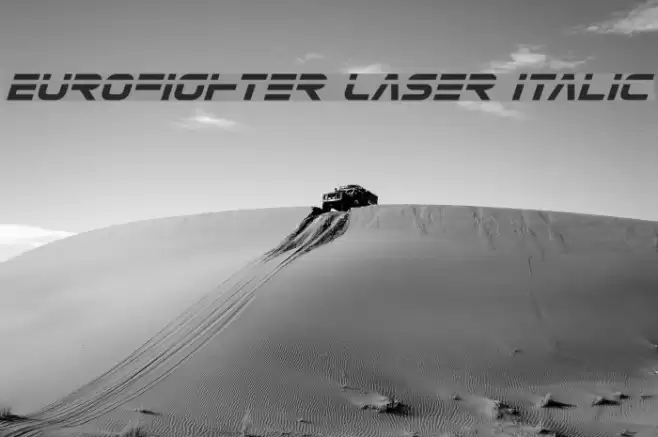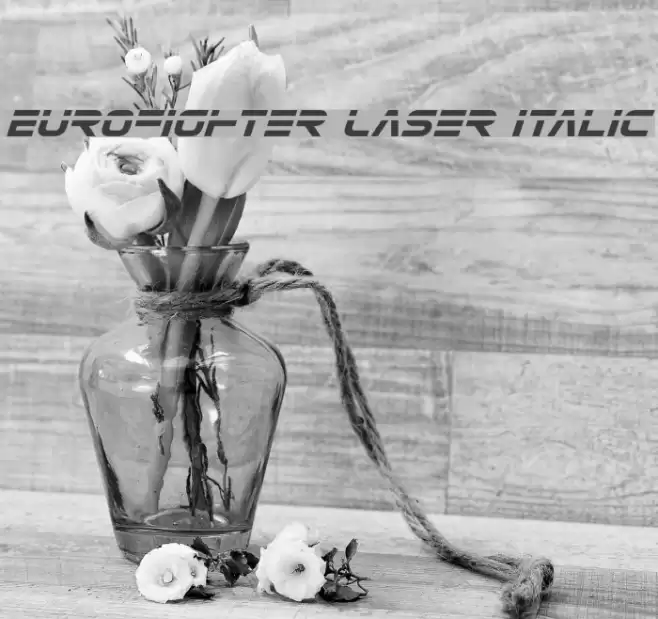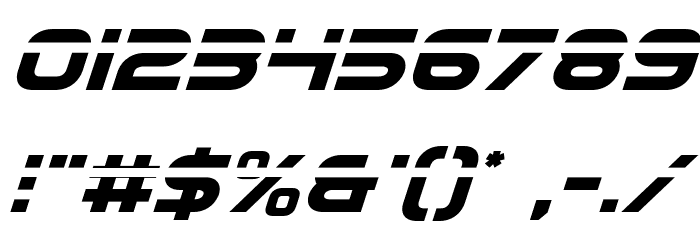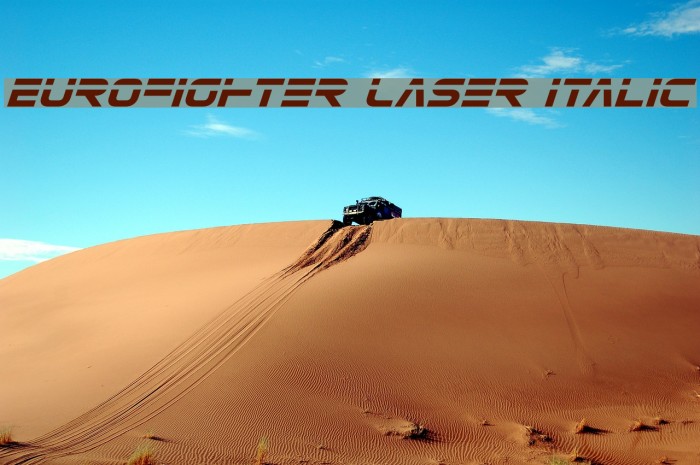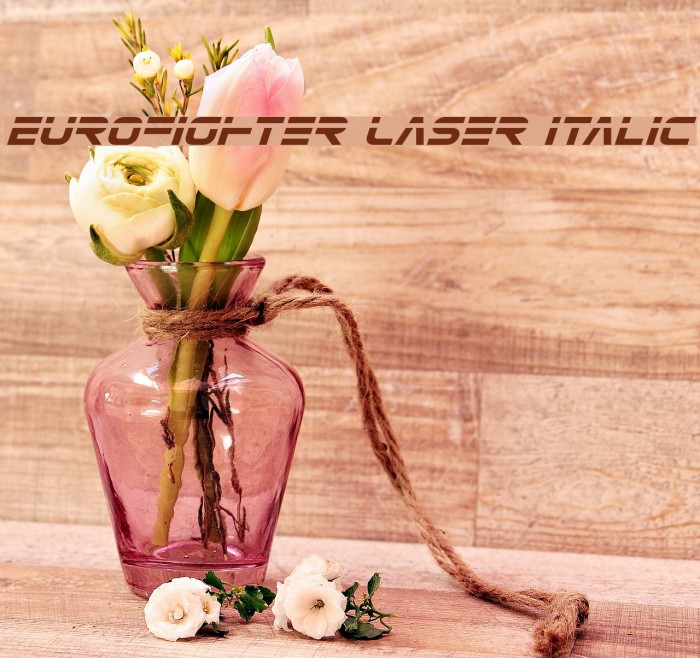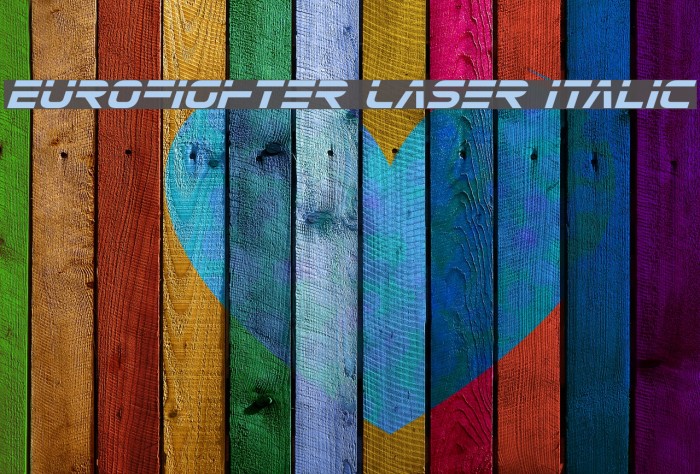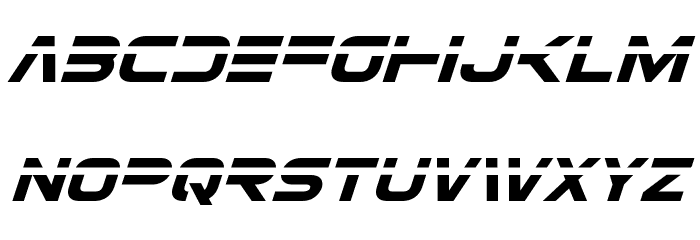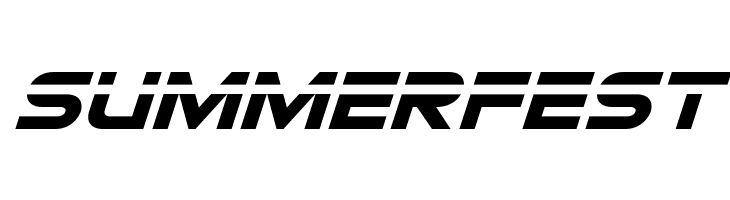
Eurofighter Laser Italic Font
Eurofighter Laser Italic Description
This font features a futuristic and dynamic design, characterized by its italicized and angular letterforms. The strokes are bold and consistent, giving it a strong presence. The characters are slightly condensed, enhancing the sleek and modern aesthetic. The font includes uppercase and lowercase letters, numbers, and a variety of special characters, all maintaining the same stylistic approach. The slanted orientation adds a sense of motion and speed, making it ideal for projects that require a modern and energetic feel.
A bold, italicized font with a futuristic and dynamic design from Uncategorized fonts.
- Proposed Projects: Ideal for technology branding, sci-fi movie posters, video game titles, and automotive advertising.